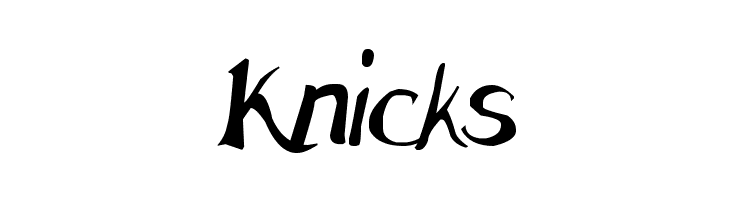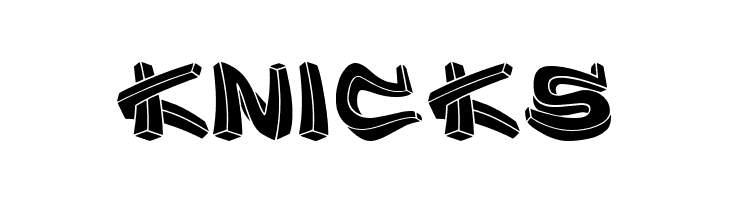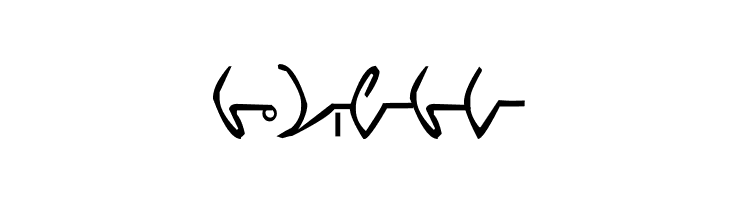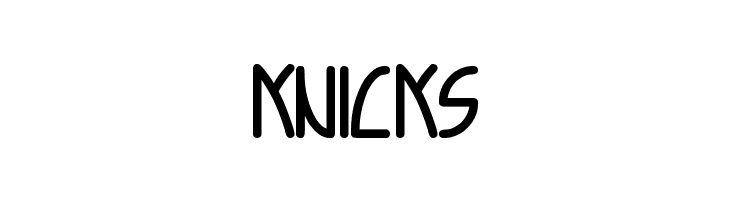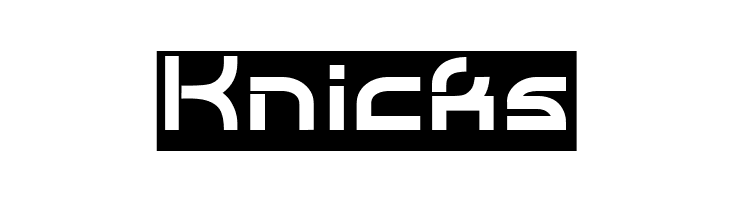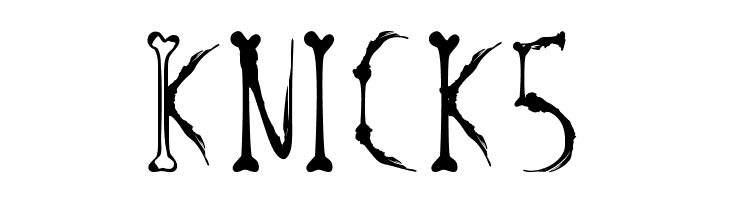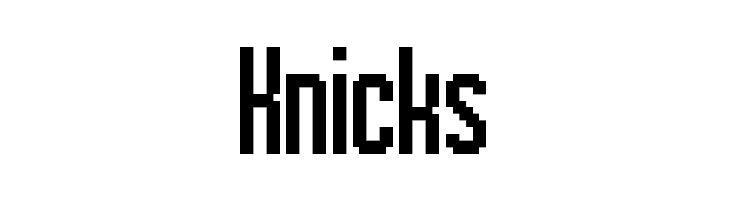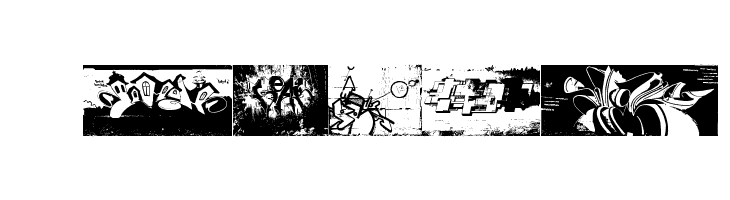
A bold, futuristic geometric font with angular letterforms.
A bold, dynamic script font with expressive, cursive letterforms.
A bone-inspired, eerie font with sharp, elongated strokes.
A pixelated, blocky font with a retro digital aesthetic.
A bold, urban font with a 3D graffiti-inspired style.
A futuristic and abstract font with geometric shapes and lines.
A bold, graffiti-inspired font with dynamic, expressive strokes and intricate designs.
A futuristic, geometric font with bold, rounded letterforms.